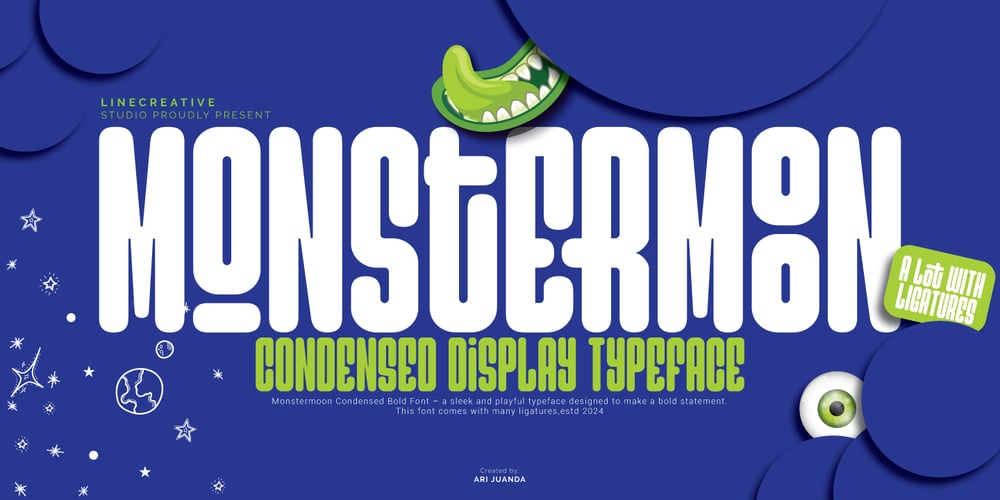
Monstermoon Font Family was designed by Ari Juanda and published by Linecreative. Monstermoon contains 1 styles and family package options. Monstermoon Condensed Bold Font is a sleek and playful typeface designed to make a bold statement,comes with many ligatures.The font is a condensed, modern typeface featuring playful curves and dynamic shapes. It is designed with a set of stylish ligatures, adding a unique and flowing connection between characters.What you get, you will get : 1. Monstermoon font including Upper & Lowercase characters(ALL CAPS), 2. Numbers and Punctuation 3. Supports Multi linguage (Latin Western Europe)4. Ligatures Character